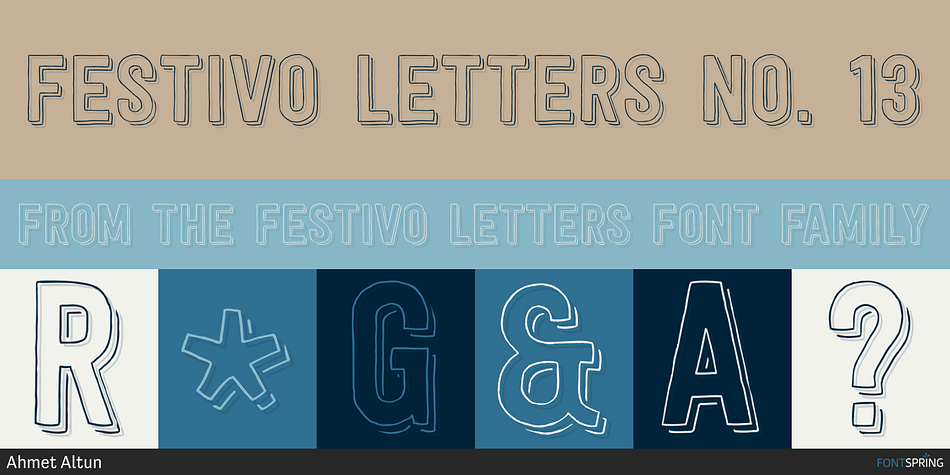
Festivo Letters No. 13
Festivo Letters is a display and display sans font family. This typeface has nineteen styles and was published by Ahmet Altun.
Festivo Font Family is a handmade layered font which includes several textures, shadows.
Festivo Font Family is a handmade layered font which includes several textures, shadows. Different font types can be created using various combinations of Festivo Fonts and colors. All fonts of Festivo letters are created as hand-drawn design based on F.L. NO:8 Fontís Letters. The fonts No:16, No:17 and No:19 have the same metric and kerning structure than the other Festivo Fonts except No:18. So each one of these 3 fonts are a layer. But they can also be use as wide spaced fonts. No:18 is specific with its metric and kerning structure which was formed by No:17 but No:18 is its bold version. It was designed as a supplemental font. The fonts No:12 and No:15 can be used as shadows. This font family also includes a few ornaments. For your convenience, the files of the fonts were termed by their numbers. The various possibilities of the Festivo Font Family allows you to create a lot of great works such as posters, magazines, printings, t-shirts etc.